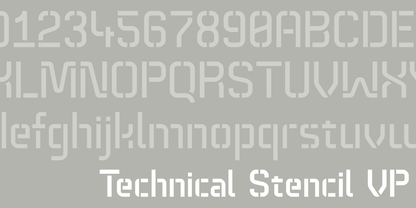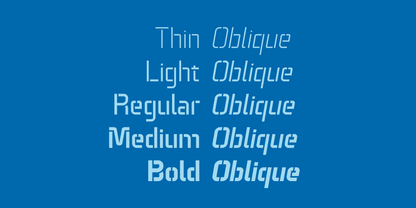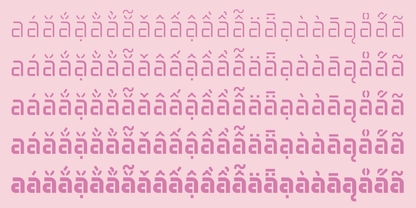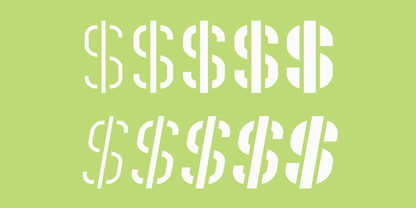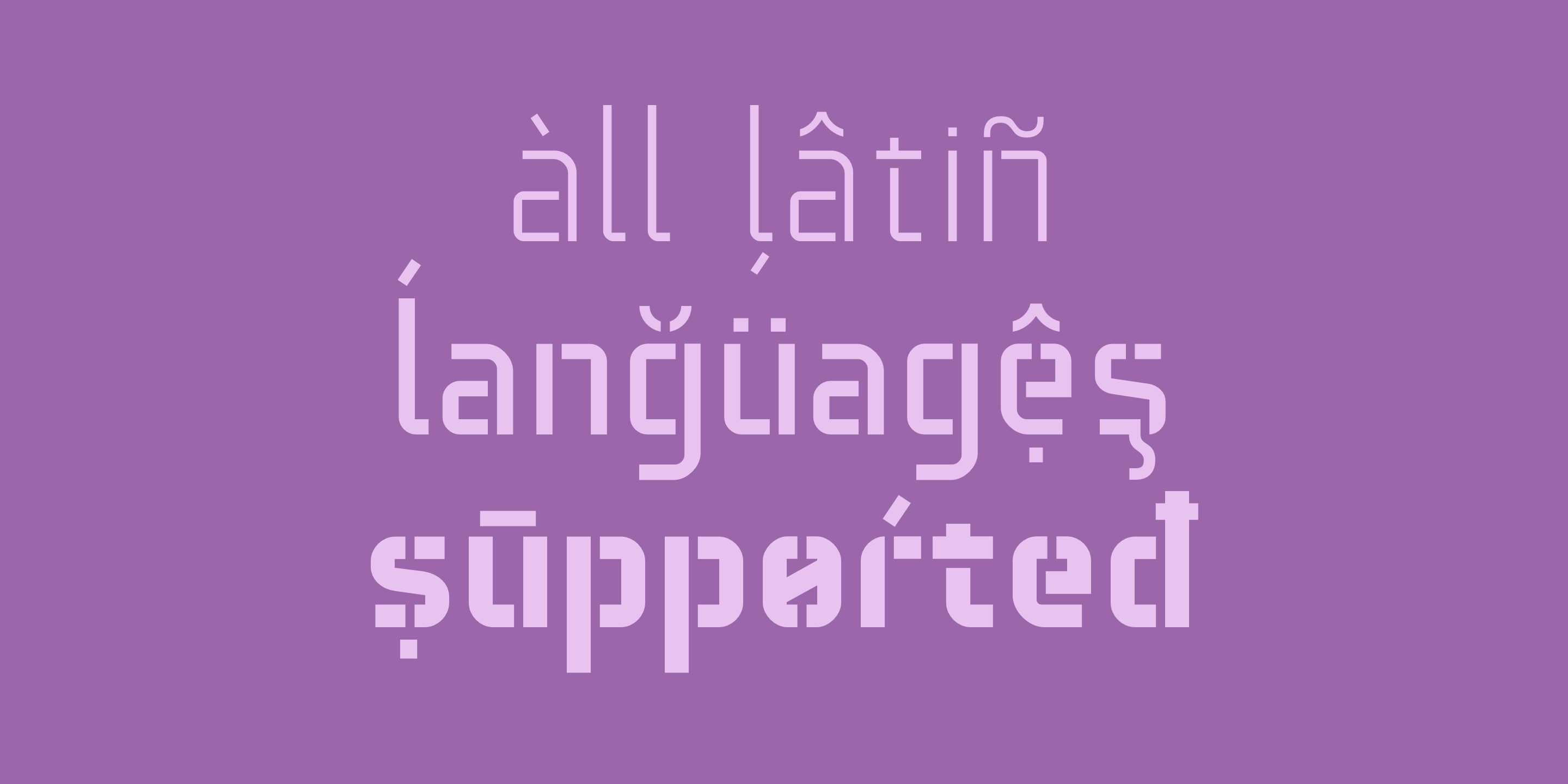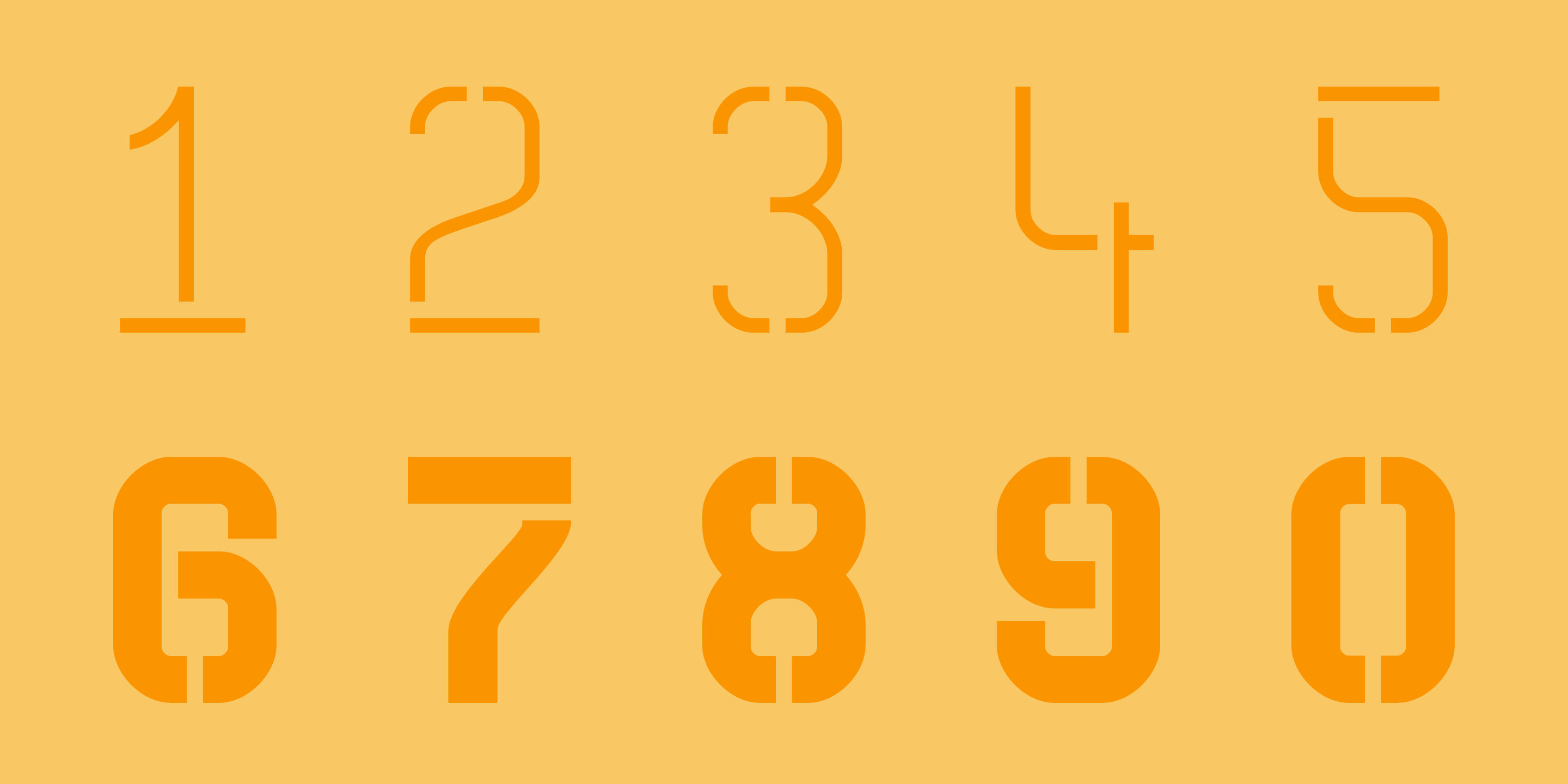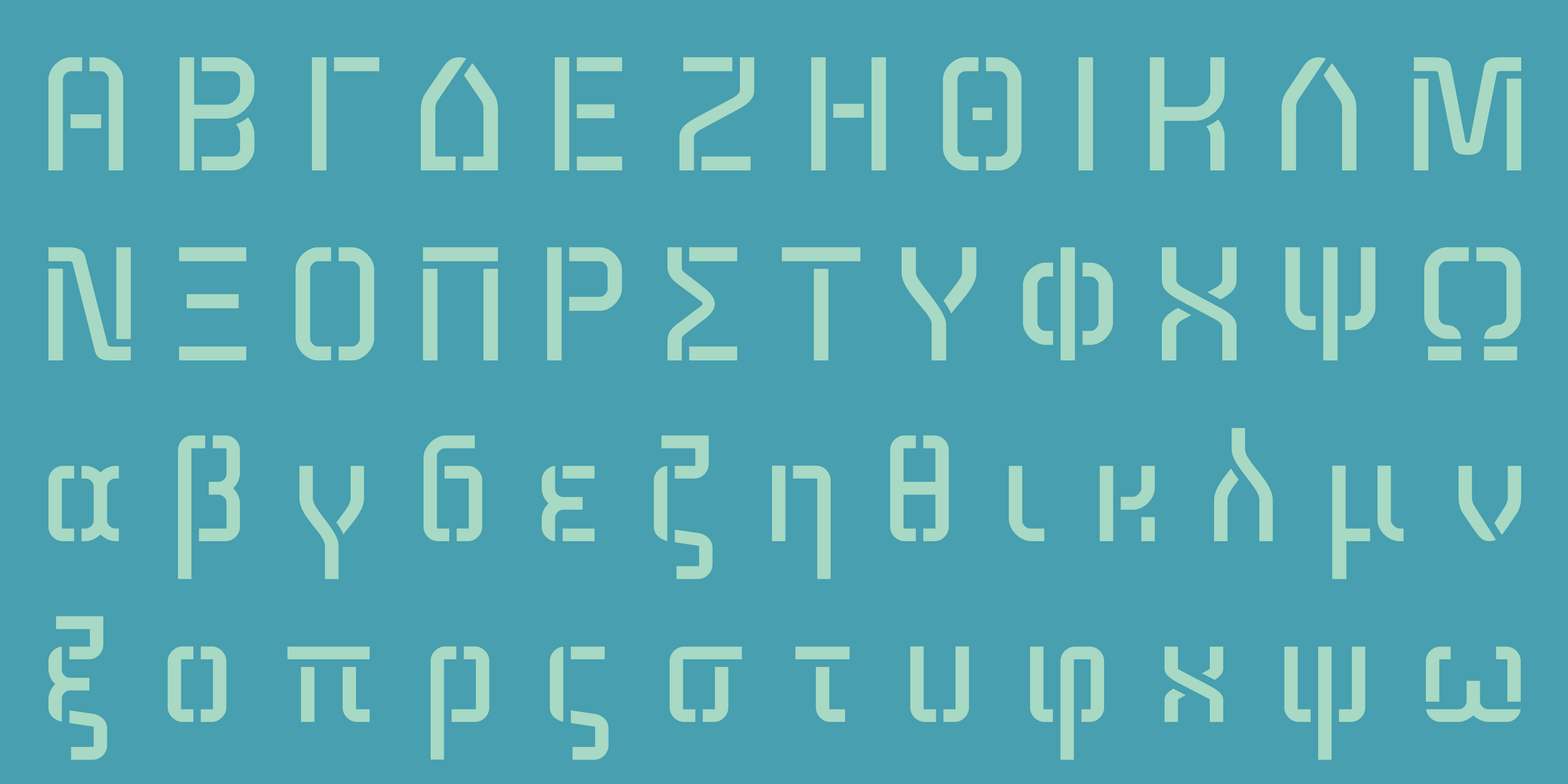
<b>Technical Stencil VP</b> is the stenciled version of <b>Technical Standard VP</b> and the two typefaces can be used either on their own or together seamlessly.
The initial inspiration for their design came from examining the various types of precisely machined labels on tools from cameras to cars, which need to be perfectly legible at all sizes. The unique streamlined look such processes achieve was carefully reinterpreted and the resulting fonts are at the same time robust and stylish, both universal and unique. Technical Stencil VP includes <b>ten distinct styles, offering great versatility</b>.
All styles in this family include an extensive Latin character set, the Greek alphabet, multiple sets of numerals, a large set of punctuation marks, and other symbols. With 1120 glyphs in each style, it guarantees <b>full support for all Latin languages</b>. To make the family even more powerful, <b>twenty OpenType features</b> are included, such as multiple vertical positions, diagonal fractional forms, optional slashed zeros, separate old-style and lining figures, small capitals, and contextual alternates.